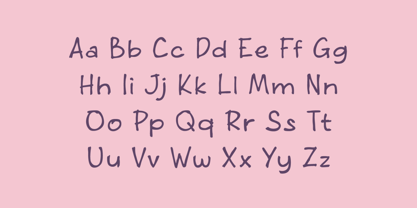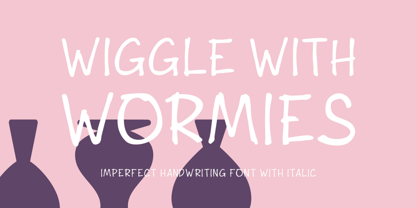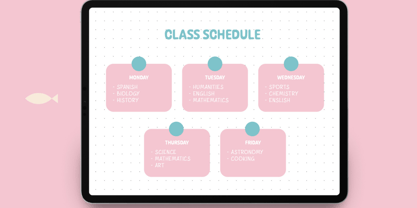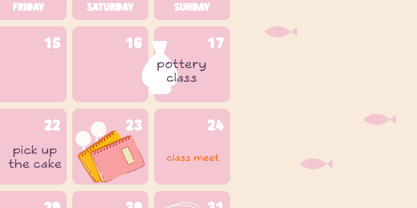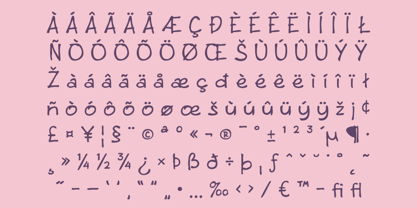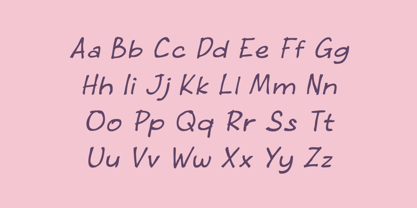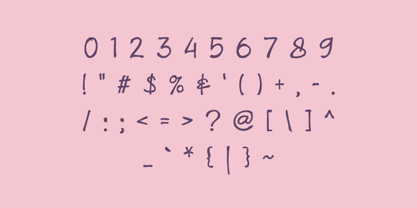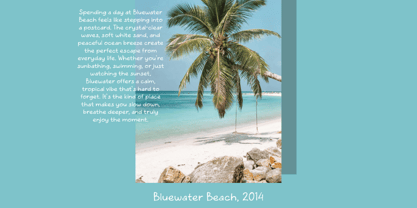
PGR Wormies
by Pikgura Type
PGR Wormies – Imperfectly Playful Handwriting Font
PGR Wormies is a quirky handwritten display font that embraces imperfection with confidence. Its irregular strokes and spontaneous letterforms give it a raw, expressive personality—perfect for designs that want to feel human, fun, and unpolished in the best way.
Inspired by casual doodles and offbeat journaling, Wormies adds a touch of authenticity to everything from sticker packs and zines to children’s products and creative branding. Each glyph is intentionally imperfect, creating a rhythm that feels organic and full of character.
PGR Wormies is ideal for creatives who want to break away from polished perfection and embrace a more spontaneous, heartfelt aesthetic. It’s messy, it’s bold—and it’s unapologetically fun.